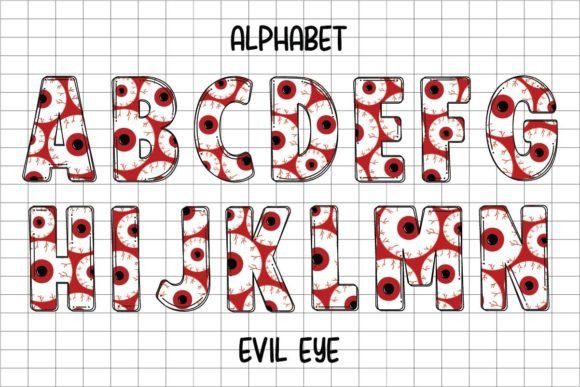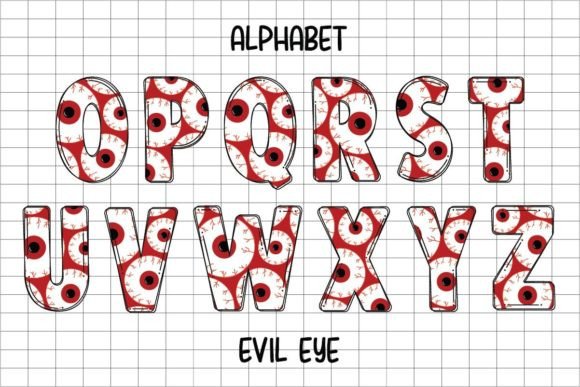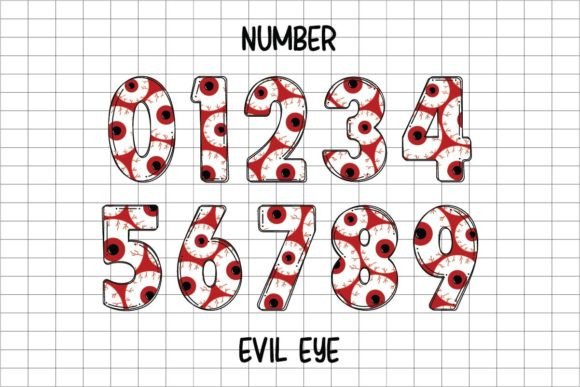
Evil Eye Font: Add a Spooky Touch to Your Designs with this Halloween-Styled Font
Are you looking for a font that will add a touch of spookiness and fun to your designs this Halloween season? Look no further than the Evil Eye Font! This cute and fun Halloween-styled detailed colored font is perfect for a variety of projects, from Halloween and horror-themed designs to cute and playful creations. In this article, we’ll take a closer look at the Evil Eye Font, its features, and how you can use it to make your designs stand out.
What is Evil Eye Font?
Evil Eye Font is a unique and eye-catching font that is sure to grab attention. Its detailed and colored design makes it perfect for a variety of projects, from Halloween-themed designs to horror and cute creations. The font is incredibly versatile and can be used in a variety of contexts, making it a great addition to your font collection.
Features of Evil Eye Font
The Evil Eye Font comes with several features that make it a great choice for designers and crafters. Some of its key features include:
- Halloween-styled design: The font features a spooky and fun design that is perfect for Halloween and horror-themed projects.
- Detailed and colored: The font is detailed and colored, making it perfect for designs that require a pop of color.
- Use it for Halloween and horror-themed designs: The font is perfect for Halloween and horror-themed designs, but you can also use it for cute and playful creations.
- Experiment with different colors: The font comes in a variety of colors, so experiment with different colors to find the one that works best for your design.
Limitations of Evil Eye Font
The Evil Eye Font is a unique and eye-catching font that is perfect for Halloween and horror-themed designs, as well as cute and playful creations. Its detailed and colored design makes it a great addition to your font collection. With its compatibility with various design programs and ease of use, the Evil Eye Font is a great choice for designers and crafters. So why not give it a try and see how it can add a spooky touch to your designs?